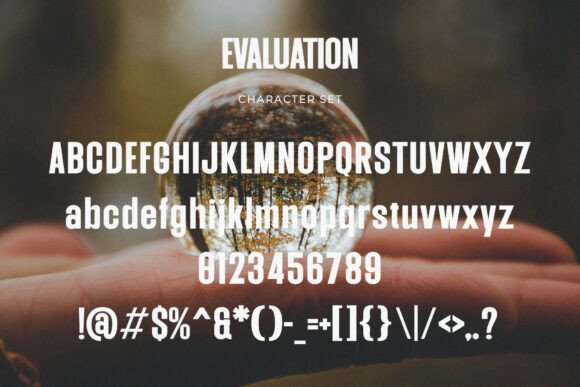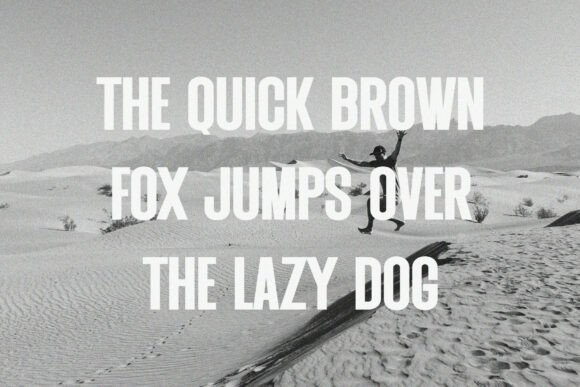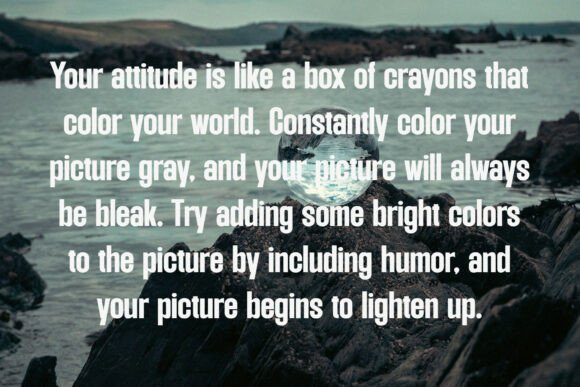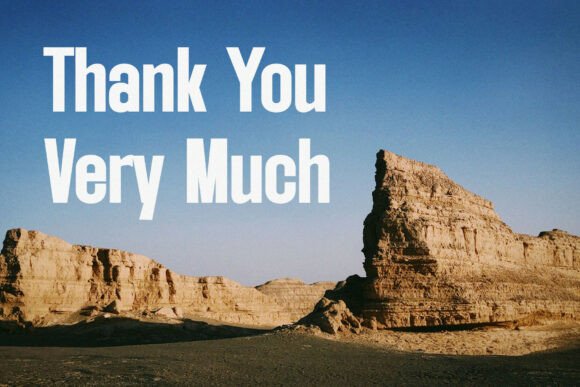
Introduction to Evaluation Font
Evaluation is a striking modern condensed font crafted for headlines, poster titles, and high-impact branding.
Its slim yet bold structure adds sophistication and power to your layouts, making it ideal for editorial, fashion, and advertising design .
Key Features of Evaluation Font